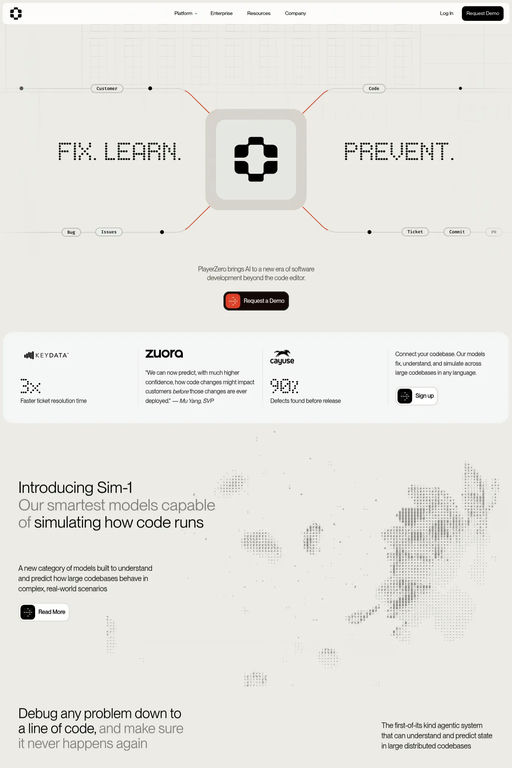
Gardenia DMG is a clone of my other pixel font, Gardenia Sans. It aims to emulate the look of dot-matrix displays, specifically at small sizes. It is a 9px bitmap font with full support for English, Spanish, and Portuguese.